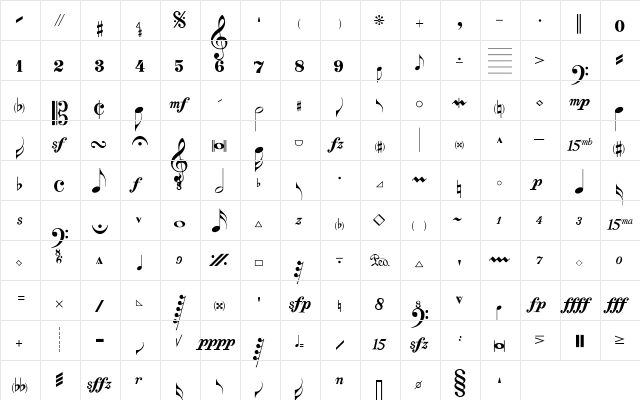
Maestro Wide Regular
Design Context for Maestro Wide Typeface
Maestro Wide takes a measured approach to typography — its balanced proportions and neutral character make it a reliable workhorse for both digital and print work.